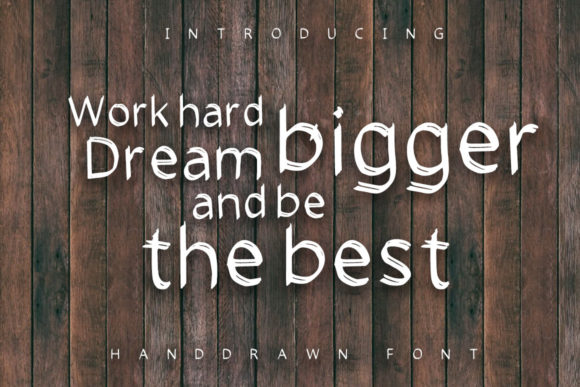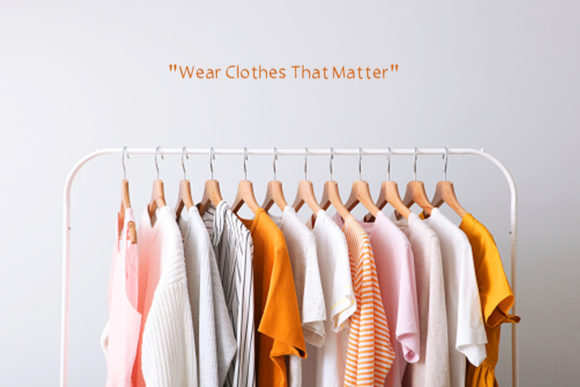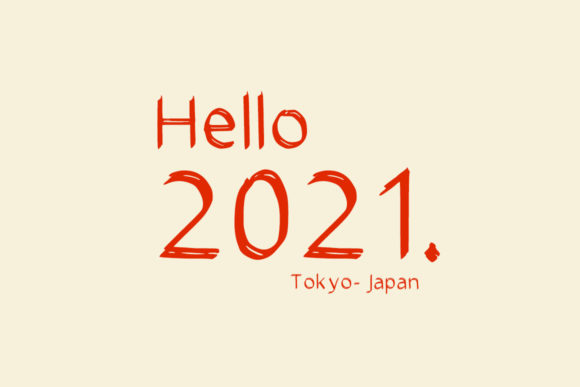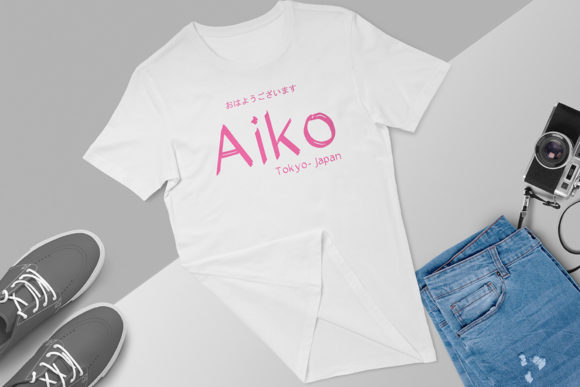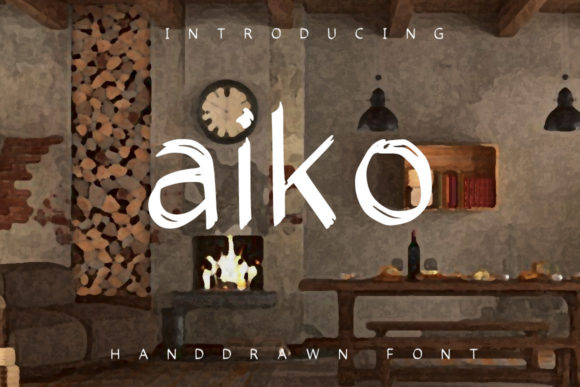
Aiko Font: The Sweet and Friendly Handwritten Font for Your Creative Projects
Are you looking for a font that can add a personal touch to your designs? Look no further than Aiko Font! Aiko is a sweet and friendly handwritten font that has gained popularity among designers and crafters for its natural and unique style. In this article, we’ll dive into the features and benefits of Aiko Font, and explore how you can use it to take your creative projects to the next level.
The Charm of Aiko Font
Aiko Font is a beautifully crafted handwritten font that exudes warmth and friendliness. Its natural and unique style makes it incredibly fitting to a large pool of designs, from rustic and vintage to modern and minimalist. The font’s charm lies in its imperfections, which give it a human touch that’s hard to replicate with generic fonts. Whether you’re designing a logo, creating a social media graphic, or crafting a handmade project, Aiko Font is sure to add a touch of personality to your work.
What Makes Aiko Font So Versatile?
One of the standout features of Aiko Font is its versatility. The font’s natural style and unique characteristics make it suitable for a wide range of designs and projects. Here are just a few examples of how you can use Aiko Font:
- Handmade crafts: Aiko Font is perfect for crafters who want to add a personal touch to their projects. Use it to create custom labels, tags, and cards for your handmade goods.
- Social media graphics: Add a touch of personality to your social media graphics with Aiko Font. Use it to create eye-catching posts, stories, and ads that stand out from the crowd.
- Logos and branding: Aiko Font is a great choice for logos and branding projects that require a friendly and approachable tone. Use it to create a custom logo that reflects your brand’s personality.
- Stationery and invitations: Aiko Font is perfect for creating custom stationery, invitations, and greeting cards. Add a touch of elegance and sophistication to your designs with this beautiful handwritten font.
Benefits of Using Aiko Font
So why choose Aiko Font for your creative projects? Here are just a few benefits of using this beautiful handwritten font:
- Unique and distinctive: Aiko Font is a one-of-a-kind font that will set your designs apart from the crowd.
- Easy to read: Despite its handwritten style, Aiko Font is incredibly easy to read, making it perfect for body text and captions.
- Highly versatile: Aiko Font can be used for a wide range of designs and projects, from digital graphics to handmade crafts.
- Time-saving: With Aiko Font, you can create professional-looking designs in no time. No need to spend hours designing a custom font from scratch!
How to Use Aiko Font in Your Designs
Ready to get started with Aiko Font? Here are some tips for incorporating this beautiful handwritten font into your designs:
- Pair it with other fonts: Aiko Font looks great when paired with other fonts, such as sans-serif fonts for a modern contrast or serif fonts for a vintage feel.
- Experiment with colors: Aiko Font looks great in a variety of colors, from bright and bold to soft and pastel.
- Use it for headings and titles: Aiko Font is perfect for headings and titles, where its unique style can really shine.
- Add some texture: Consider adding some texture to your designs, such as a paper texture or a subtle gradient, to give them a more organic feel.
In conclusion, Aiko Font is a sweet and friendly handwritten font that’s perfect for designers and crafters who want to add a personal touch to their creative projects. Its natural and unique style makes it incredibly versatile, and its ease of use makes it a great choice for projects of all kinds. Whether you’re designing a logo, creating a social media graphic, or crafting a handmade project, Aiko Font is sure to be a valuable addition to your design toolkit.